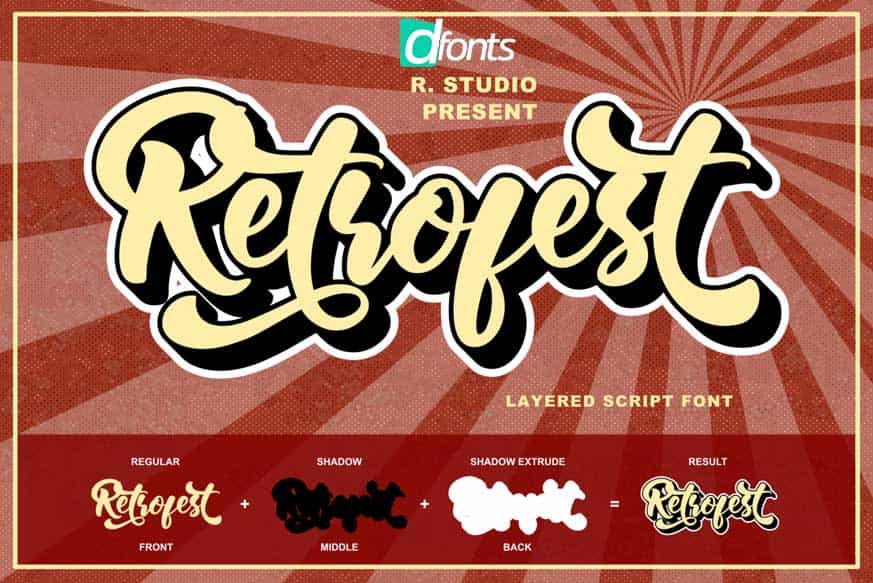
Retrofest is a charming font that come with elegance to add style and lightness to your designs. Retrofest was carefully created to be fit crafts designs and I also made a unique touch for the logotype.